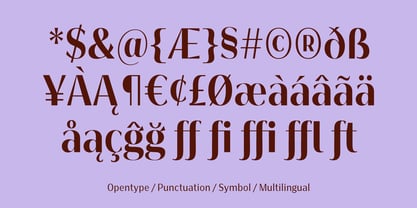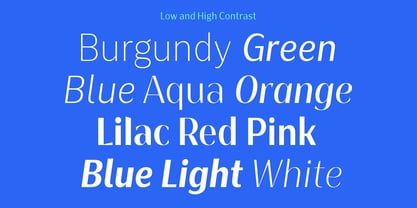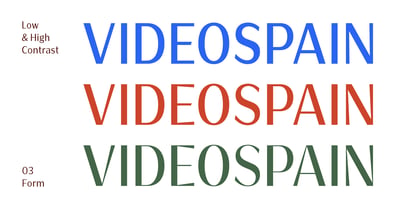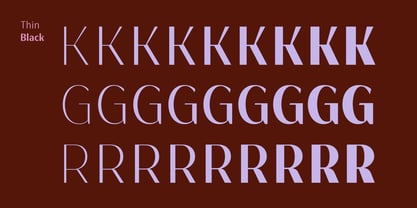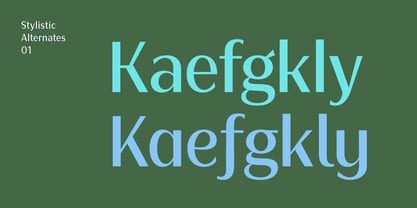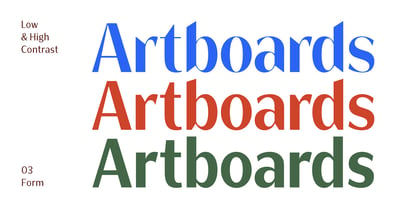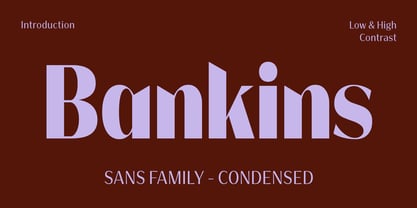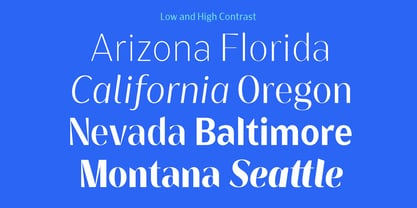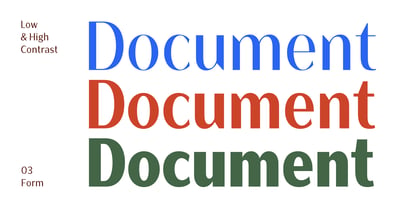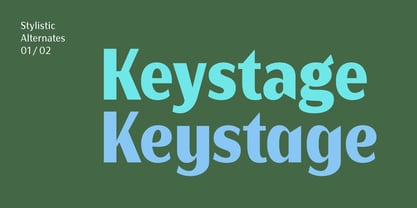
Bankins Condensed
von Akbartype
Die Schriftfamilie Bankins Condensed wurde von Azzura . entworfen und von Akbartype veröffentlicht. Bankins Condensed enthält 162 Stile und Familienpaketoptionen. Mehr über diese Familie
Bankins Condensed is a modern sans-serif type family crafted to address the demands of contemporary visual communication. It features smooth, continuous transitions across a complete weight range—from Thin to Black—paired with precise slant control, enabling designers to fine-tune visual tone, rhythm, and emphasis with confidence. The family explores a wide spectrum of contrast and form variations, shaping letterforms that range from clean and neutral to more expressive interpretations, while consistently preserving excellent legibility. Enriched with alternate characters and comprehensive multilingual support, Bankins Normal is ideally suited for branding systems, digital interfaces, editorial design, and modern typographic experimentation—offering a balanced combination of versatility, clarity, and visual consistency.
Designer: Azzura .
Foundry: Akbartype